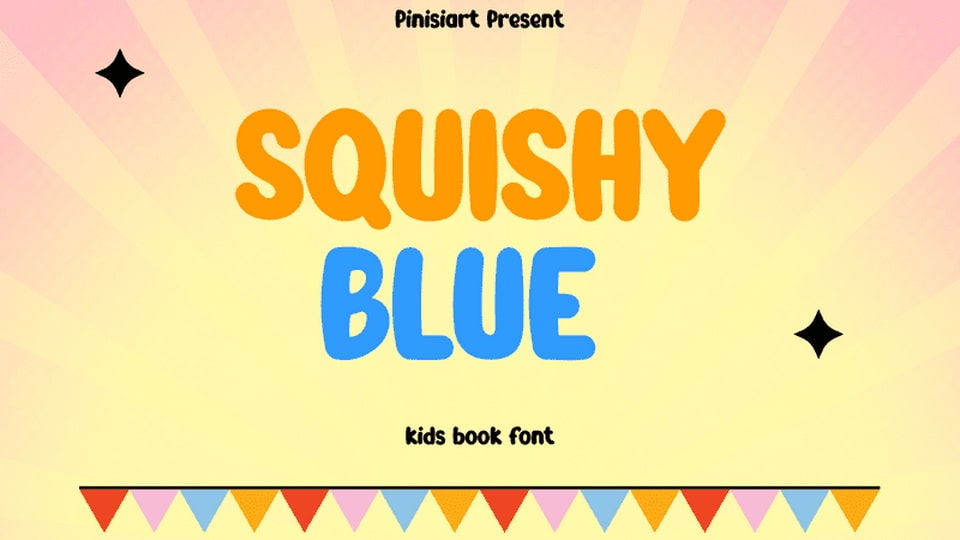
Download Squishy Blue font, a kids book typeface. The cartoon feels great read-ability throughout the whole sentence. A rounded corner and a bit of irregularity on the baseline make the font more kid-friendly.